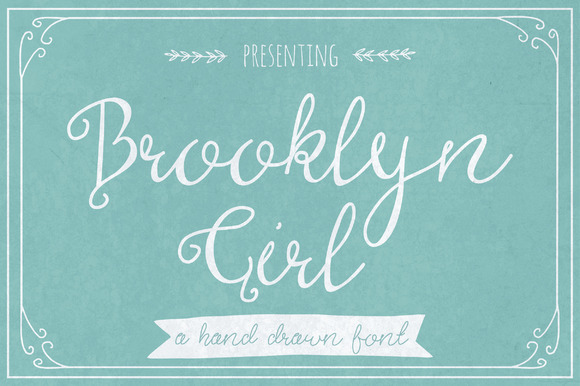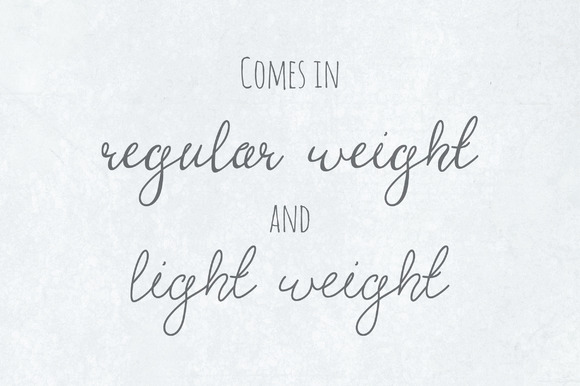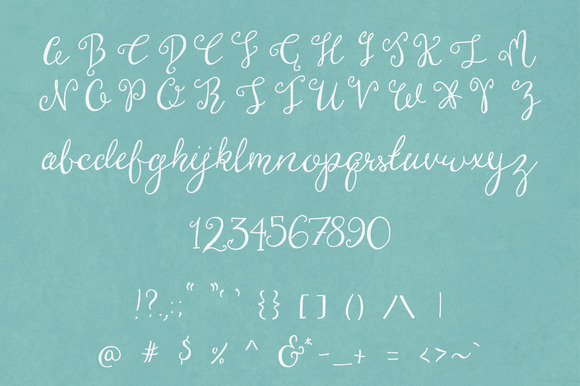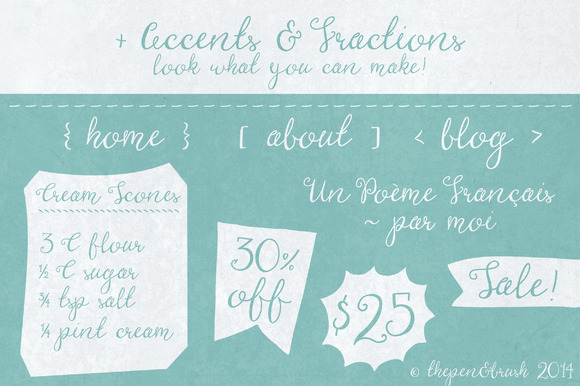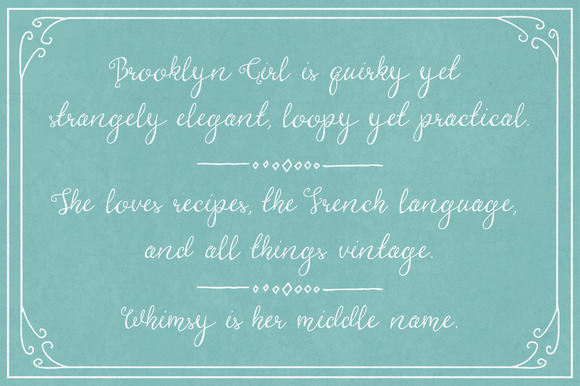
Brooklyn Girl Font
About Brooklyn Girl Font
Brooklyn Girl is a beautiful handwritten font that is inspired by the girly handmade movement that is flourishing in Brooklyn.
Brooklyn Girl features very curly capital letters that are combined with smooth flowing lowercase characters.
The font comes in 2 weights:
Brooklyn Girl Calligraphy Pen
Brooklyn Girl Ballpoint Pen
It includes all basic letters and currency symbols, copyright/trademark sign, fractions and all accented letters needed for European languages.
The Brooklyn Girl Font also includes a beautiful ampersand which is the perfect addition for for example wedding invites.